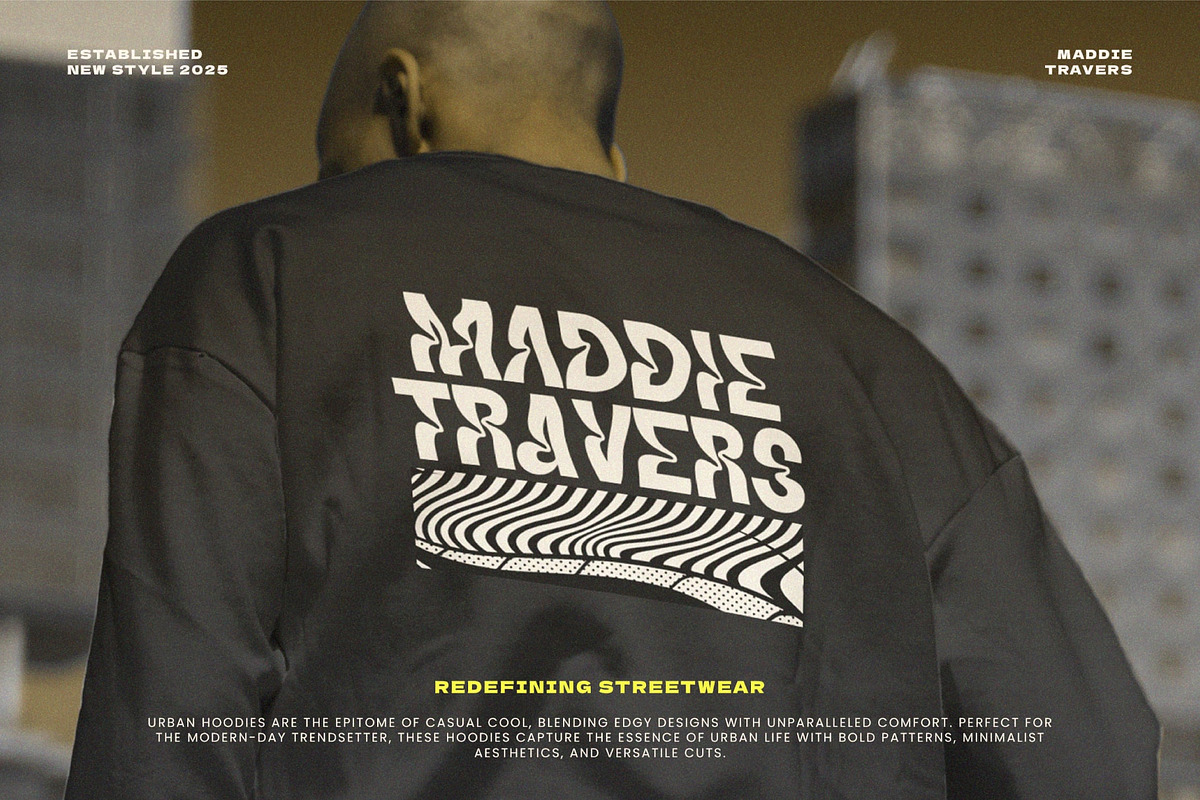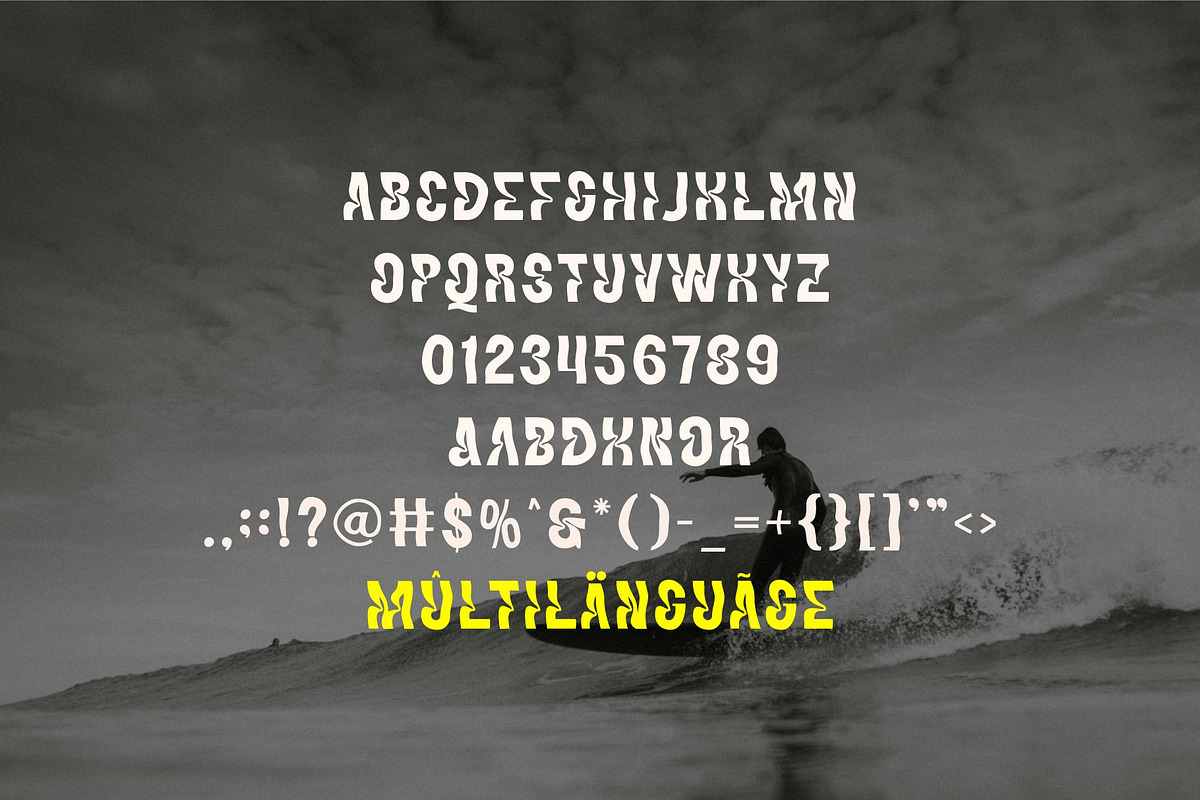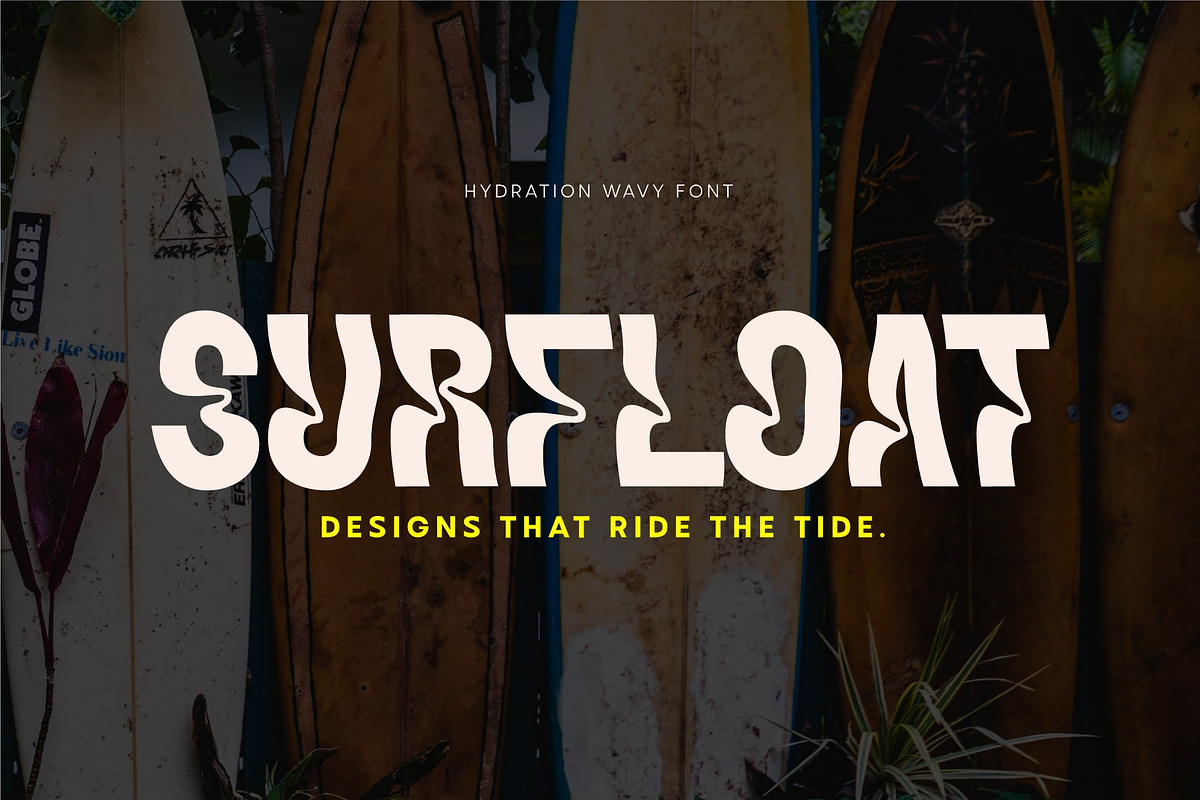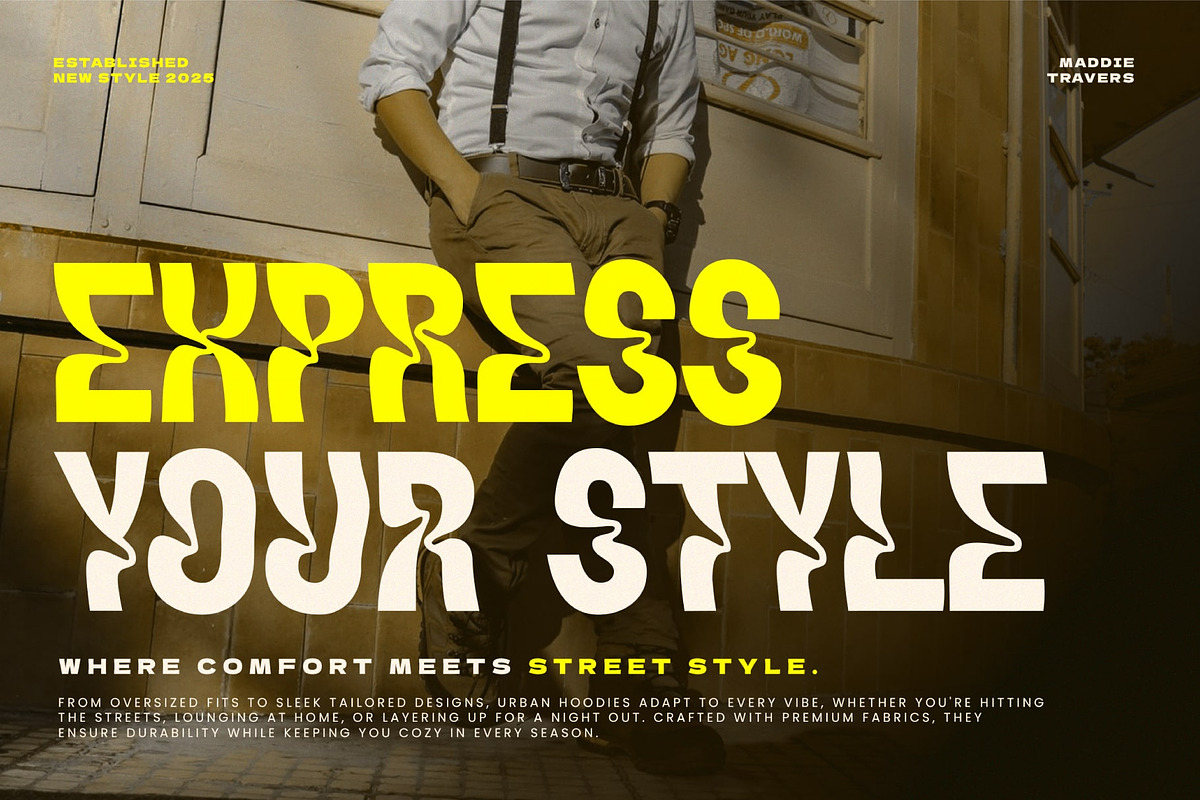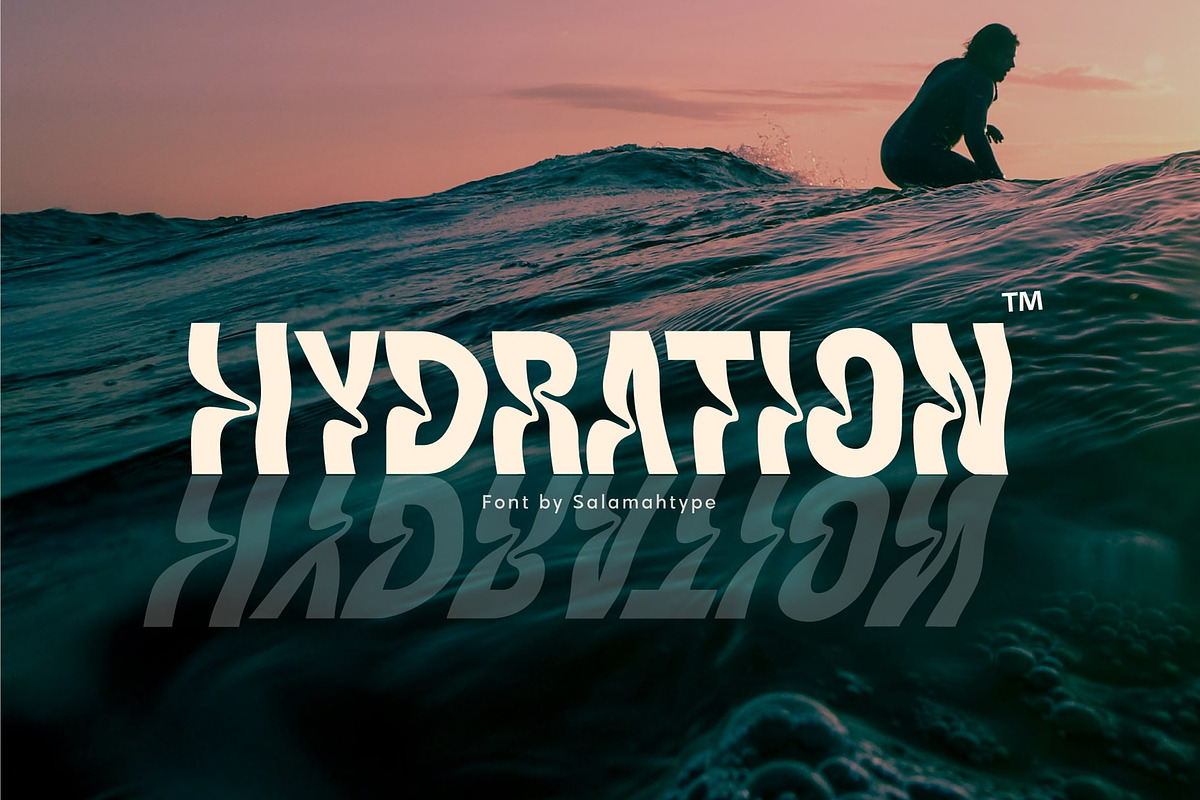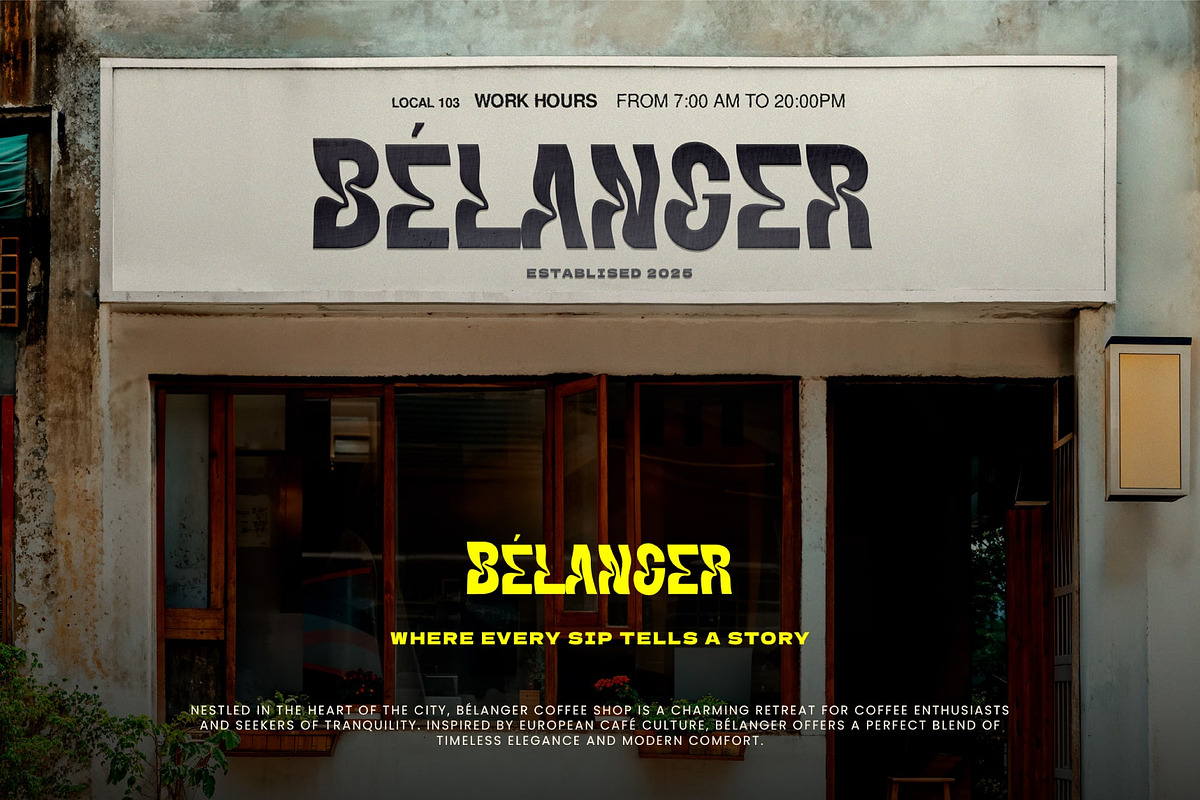
Hydration Wavy Font
Hydration is a bold, wavy, and dynamic display typeface inspired by the fluidity and movement of water. Its unique letterforms feature rippling edges that convey a sense of motion and energy, making it perfect for projects with oceanic, modern, or adventurous themes.
This font excels in branding, especially for surf shops, outdoor apparel, and lifestyle brands. The playful yet professional vibe ensures versatility across media, from storefront signage to stylish apparel designs. With multilingual support and alternate characters, Hydration brings a refreshing creative touch to any project.
- Uppercase and lowercase (Allcaps)
- Symbols and punctuation